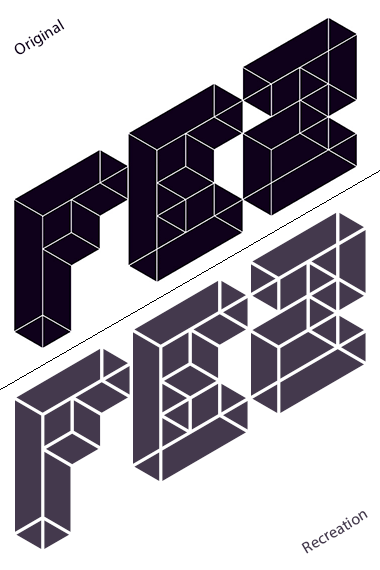
• Because. Neither the characters are my idea nor the technique. The logo characters belong to Polytron Corporation and the technique was originated by frodo7 I did it just because. If you haven't played FEZ, perhaps you should; if you haven't explored frodo7's technique, perhaps you should. Thanks, Phil; thanks, frodo7. I was going to make this clonable, but on second thought, perhaps Polytron will raise copyright issue with my doing so, therefore, I am keeping it closed, in case I have to take this down upon their demand. Phil Fish (the developer of FEZ) has had a difficult time lately, and I don't want to add to his troubles. Instead, the technique is identified in an image in the comments. You can build your own, if necessary.
You make it your own, or inspired by the actual logo? Anyway, this is nice!
FEZ, classic, retro-inspired flash game? It's what I thought when I first see the website, have no idea, looks interesting...
@cablecomputer: This is a straight-up recreation of the FEZ logo. There's no innovation here. In fact, I tried to be as close to the original as I could get.
FEZ is an awesome game. It is played in 2D, but the world is much larger, which you can access by 3D rotation between the four sides. Video samples abound over on the internets.